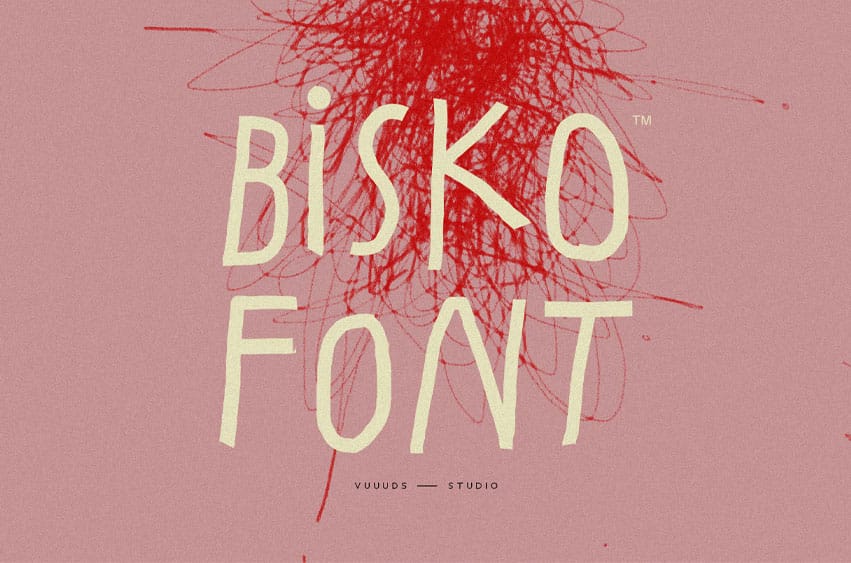
Bisko Font is an uppercase casual rough handwritten font, every single letter has been uniquely crafted. This font includes beautiful alternate glyphs.